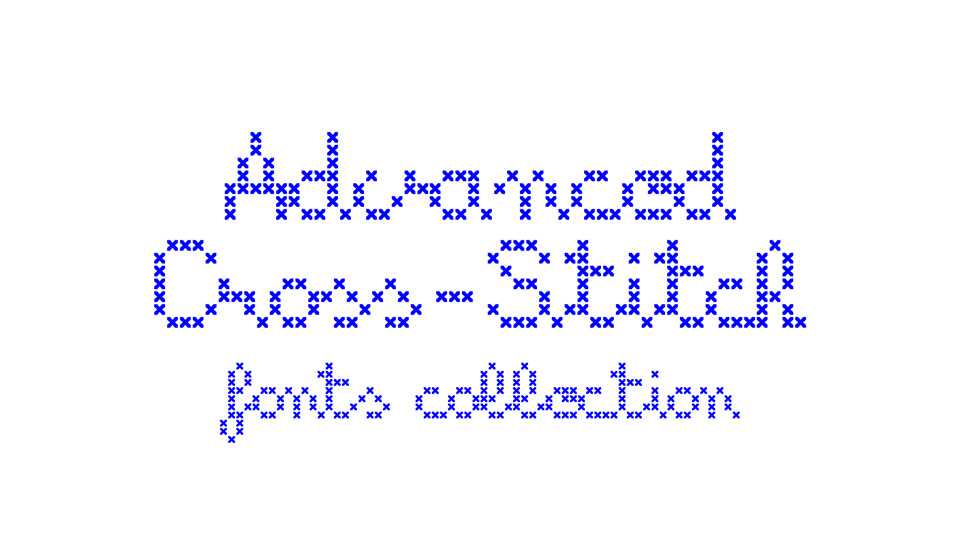
Download Advanced Cross Stitch fonts, a collection of mostly cursive style typefaces that should delight all cross-stitch lovers. The fonts are perfect for cross stitching and embroidery design.